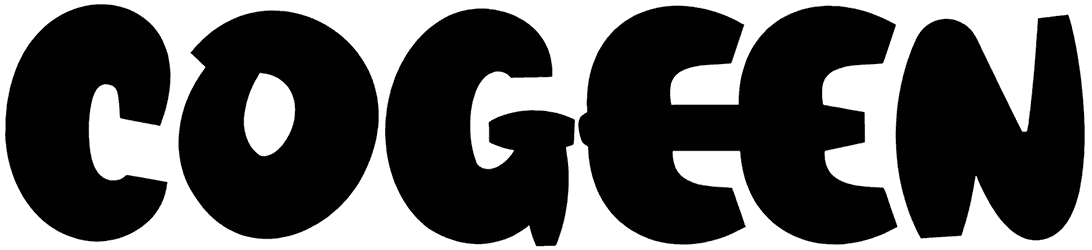
Cogeen Font
Cogeen is a trendy cartoon font that looks really great on a vast majority of graphic creations, including book covers, movie posters, illustrations, and video game banners. We offer you to overlook the lack of numbers to add a sense of softness, love, playfulness, and vivacity to your graphic content by utilizing this typeface.